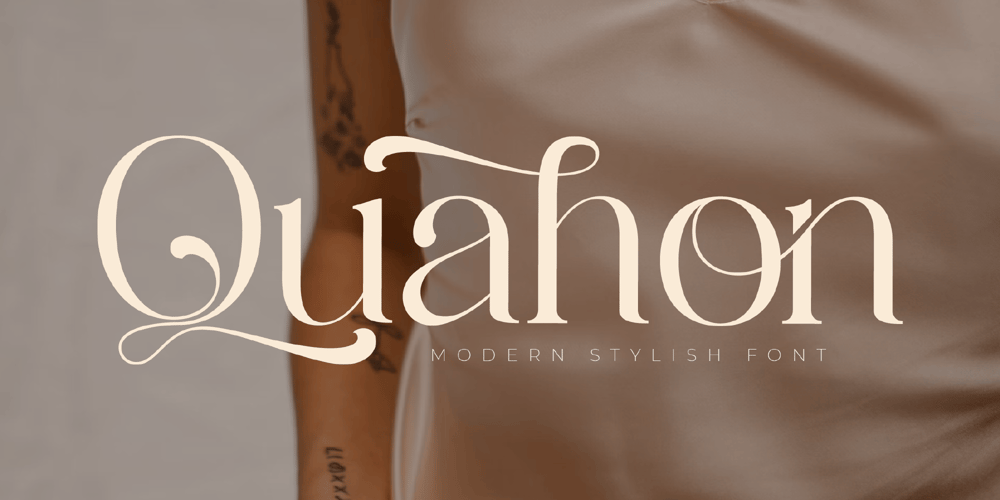
Quahon Font Family was designed by Heru Utama Putra and published by Letterena Studios. Quahon contains 2 styles and family package options. Quahon is a modern and classic serif font with a unique style and solemn look. This typeface is perfect for an elegant & luxury logo, book or movie title design, fashion brand, magazine, clothes, lettering, quotes, and so much more.